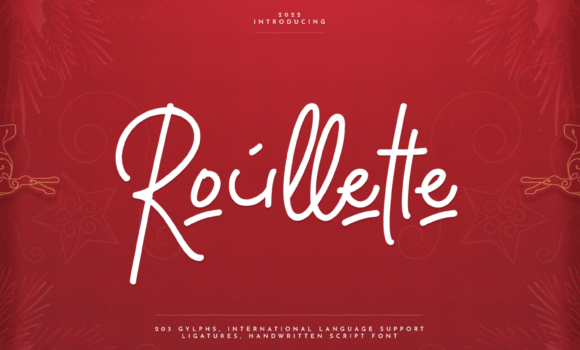
Roullette Font – Free Download Introduction to Roullette Font Roullette is a stylish and delicate script font. 📸 Preview Gallery 6 images 📌 Product Name Roullette Font 👤 Author inferno.type3 📂 Category Explore ⬇️ Download Roullette Font FREE Free Download